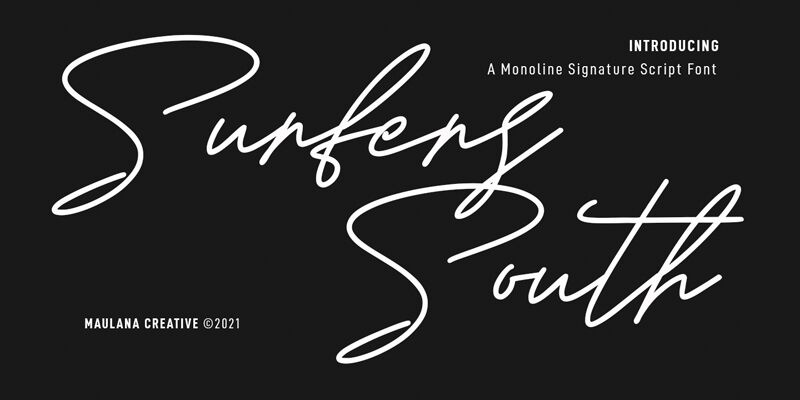
Surfers South Free Regular
Experience the ultimate beachy vibes with Surfers South, the perfect handwritten signature font designed by Maulana Creative. This light and wide font style is perfect for giving your projects a laid-back and carefree feel. Whether you're designing a surfboard logo, creating a beach wedding invitation, or crafting a travel blog header, Surfers South will add an authentic touch to your work. Its fluid strokes capture the essence of surfing culture and beach life, making it ideal for anything related to outdoor activities or summertime fun. Bring some coastal charm to your designs with Surfers South!